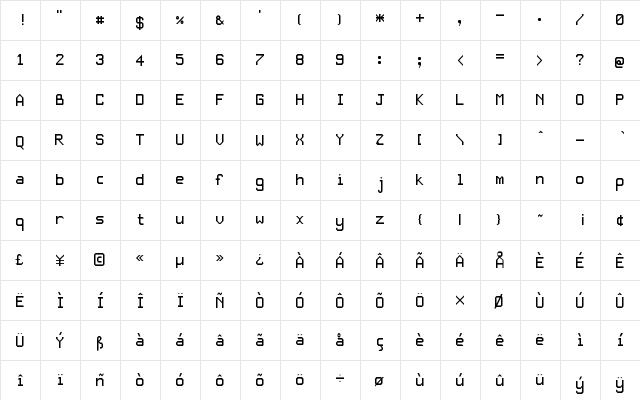
JD Nadia Regular
| Designer | Jecko Development |
Design Context for JD Nadia Typeface
JD Nadia is a composed and adaptable typeface that performs quietly and consistently across a wide range of design contexts.